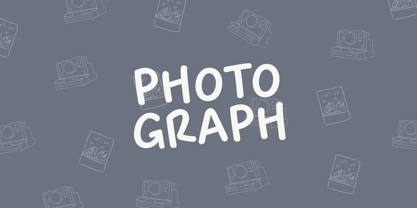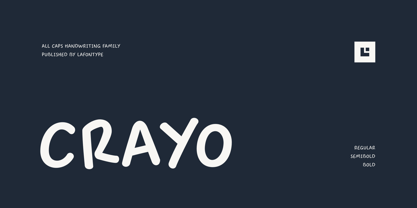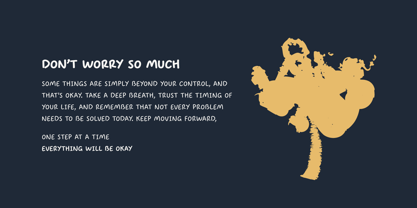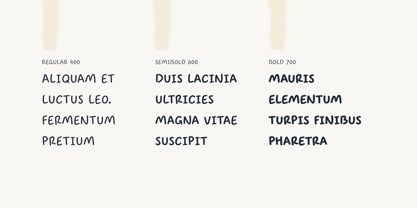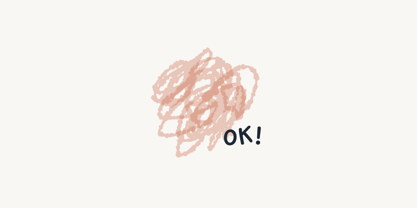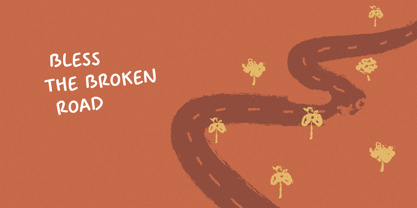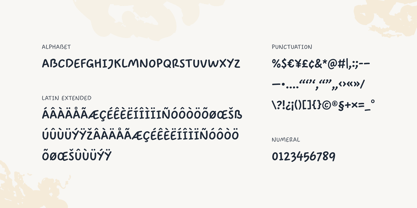
Crayo
by Lafontype
The Crayo Font Family was designed by Anugrah Pasau and published by Lafontype. Crayo contains 3 styles and family package options. More about this family
Crayo is a playful all-caps handwritten font family inspired by natural marker lettering. Featuring Regular, SemiBold, and Bold weights, Crayo combines a friendly handwritten style with excellent readability, making it a versatile choice for both professional and personal design projects.
Its organic letterforms, rounded edges, and authentic handcrafted appearance make Crayo perfect for branding, logos, packaging, posters, headlines, social media graphics, product labels, greeting cards, children's designs, apparel, merchandise, and creative marketing materials. Whether you're designing for a modern lifestyle brand, coffee shop, bakery, handmade business, or fun packaging project, Crayo adds warmth, personality, and a unique handmade touch.
Designed as an all-caps display font, Crayo works beautifully for bold titles, eye-catching typography, and memorable branding. The three font weights allow you to build clear visual hierarchy while maintaining a consistent handwritten aesthetic across your designs.
Crayo includes multilingual support, extended Latin characters, numerals, and punctuation, making it suitable for a wide range of international creative projects.